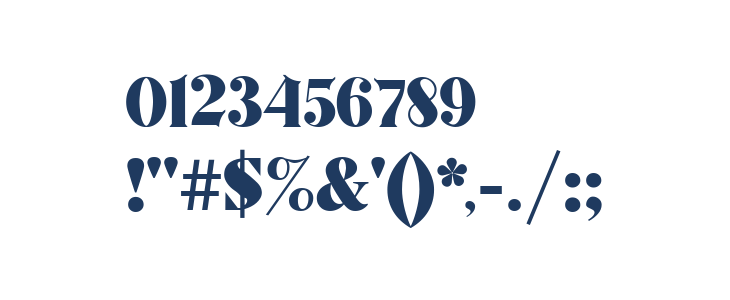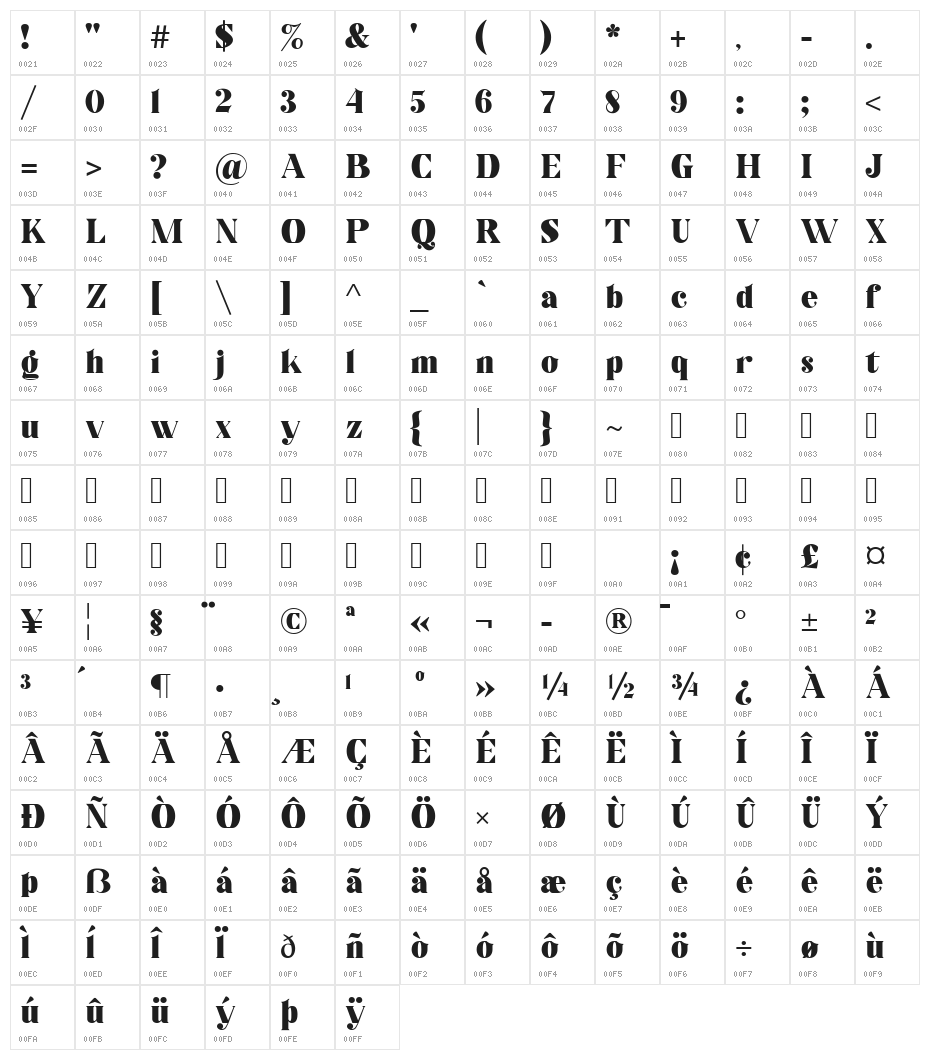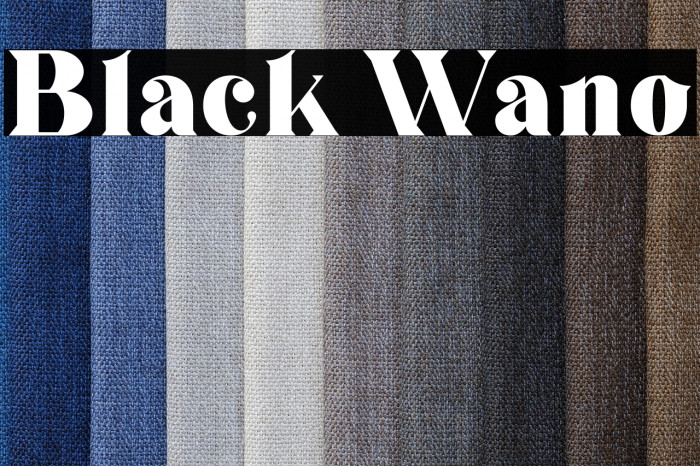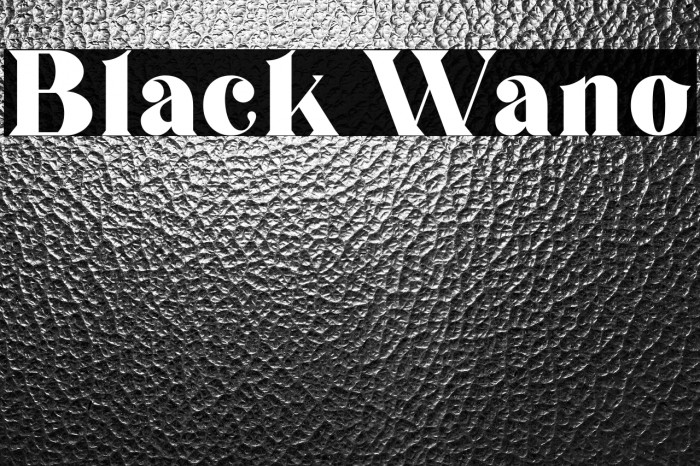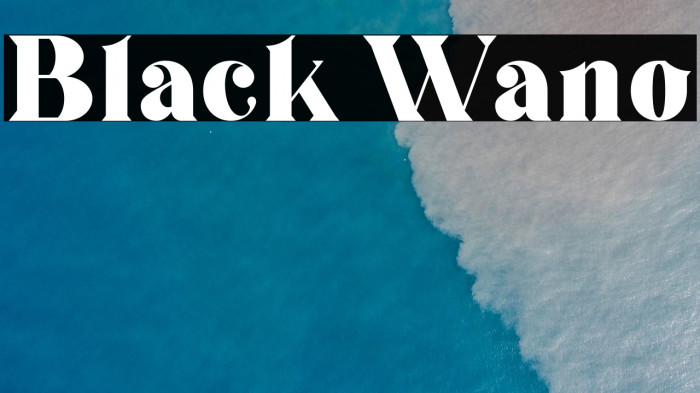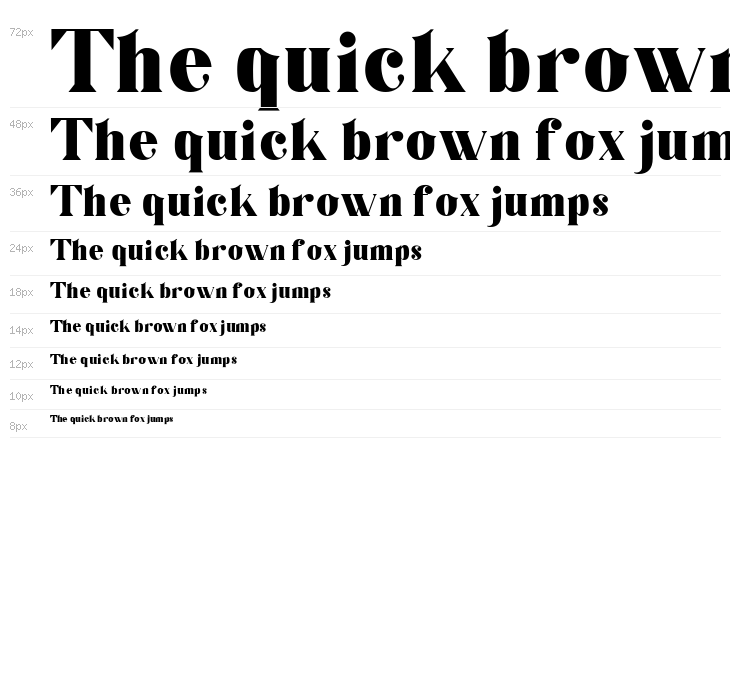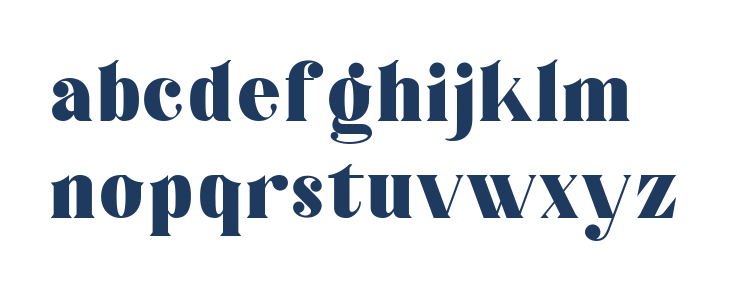
Black Wano Font
Black Wano Description
This font features a bold and dramatic style with high contrast between thick and thin strokes, giving it a striking and impactful appearance. The uppercase letters are particularly distinctive, with sharp serifs and a strong presence. The lowercase letters maintain the boldness while offering a slightly softer look with rounded edges. Numbers and special characters follow the same bold and high-contrast design, ensuring consistency across all glyphs. This font's unique style makes it ideal for creating eye-catching designs that require a strong visual impact.